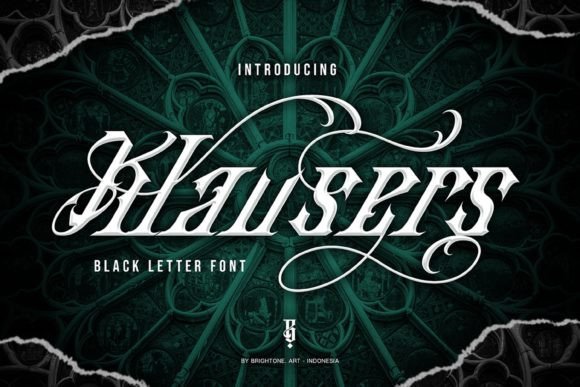
Embark on an enthralling typographic journey with Klausers, the blackletter font that captivates with its intricate details and modern elegance. Step into a world where letters dance with grace, intertwining to form mesmerizing designs that ignite your creativity.
Klausers is not just a font; it's an art form that breathes life into your designs. Its bold, sweeping strokes and delicate flourishes add a touch of sophistication and timeless charm to any project. Whether you're crafting a captivating logo, designing a captivating poster, or creating eye-catching social media graphics, Klausers is your trusted companion, guiding you towards typographic excellence.
With Klausers by your side, you possess the power to transform ordinary words into captivating expressions of art. Its unique characters and swashes allow you to unleash your creativity, creating designs that resonate with elegance and originality. Let your imagination soar as you explore the endless possibilities that Klausers presents.
Experience the allure of Klausers, a font that commands attention and leaves an unforgettable impression. Its intricate details and modern flair will add depth and dimension to your designs, captivating your audience with its timeless beauty. Embrace the power of Klausers and elevate your creative vision to new heights.